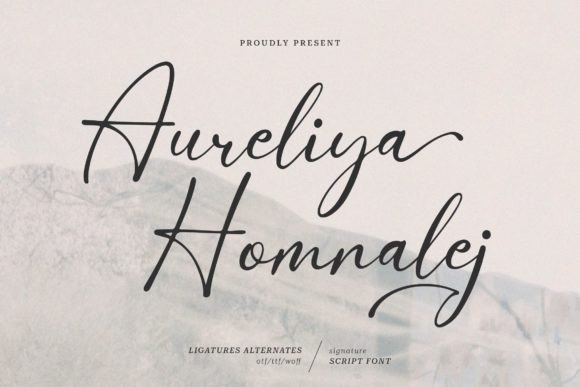
The Elegant Script Font That’s Stealing My Heart: Aureliya Homnalej
I still remember the design project that led me to discover Aureliya Homnalej. I was working on a branding project for a luxury home goods company, and I was struggling to find the perfect font to capture their sophisticated and elegant vibe. That’s when I stumbled upon Aureliya Homnalej, a dainty and elegant script font that instantly won me over.
So, what makes Aureliya Homnalej so special? Let’s dive into the good stuff and a few quirks I’ve noticed.
• ✨ Elegant and refined: Aureliya Homnalej exudes sophistication and luxury, making it perfect for high-end branding projects.
• ✅ Versatile: This font is suitable for a wide range of projects, from logos and packaging to posters and greeting cards.
• 💫 Beautiful swashes: The font comes with gorgeous swashes that add a touch of elegance to any design.
• 📚 Extensive character set: Aureliya Homnalej includes a wide range of characters, ensuring that you can create beautiful text in multiple languages.
While Aureliya Homnalej is an amazing font, there are a few things to keep in mind:
• ⚠️ Limited use in body text: Due to its elegant and cursive nature, Aureliya Homnalej might not be the best choice for long blocks of body text.
• 🤔 Not ideal for very small sizes: The font’s intricate details and swashes might get lost when used at very small sizes.
The Story Behind Aureliya Homnalej
Aureliya Homnalej was designed with elegance and sophistication in mind. The font’s creator aimed to craft a beautiful script font that would evoke feelings of luxury and refinement. With its intricate details and swashes, Aureliya Homnalej is perfect for designers and crafters who want to add a touch of elegance to their projects.
Q: What type of projects is Aureliya Homnalej suitable for?
A: Aureliya Homnalej is suitable for a wide range of projects, including logos, branding projects, homeware designs, product packaging, mugs, quotes, posters, shopping bags, t-shirts, book covers, name cards, invitation cards, greeting cards, labels, photography, watermarks, and special events.